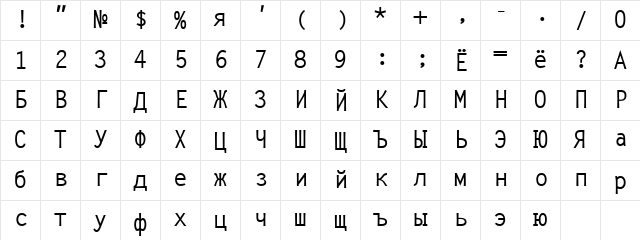
Cyrillic7SSK Regular Free Font
Cyrillic7SSK Regular
Design Context for Cyrillic7SSK
Cyrillic7SSK is a composed and adaptable typeface that performs quietly and consistently across a wide range of design contexts.